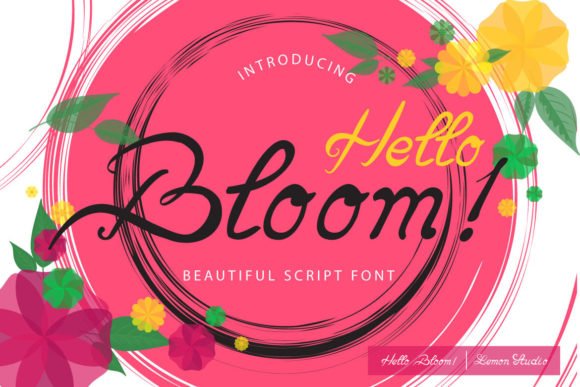
The Perfect Match for Your Creative Projects: Hello Bloom Font
Have you ever been in the midst of brainstorming a new design project, and suddenly, the perfect font pops into your head? For designers, those ‘aha’ moments are the spark that sets creativity ablaze. And for many, Hello Bloom Font has become that elusive match that ignites their imagination.
Hello Bloom Font is a modern handwritten font that brings a touch of elegance and sophistication to any design project. With its unique characters and fresh aesthetic, it’s perfect for creating eye-catching invitations, greeting cards, and branding materials. Whether you’re a seasoned designer or just starting out, Hello Bloom Font is an invaluable addition to your toolkit.
Hello Bloom Font Key Features
- Font Family: Hello Bloom is a unique, hand-drawn font designed for digital use. It comes in 4 different styles: Regular, Bold, Italic, and Bold Italic.
- Language Support: This font supports a wide range of languages, including Latin, Cyrillic, and Greek alphabets, making it a versatile choice for multilingual designs.
- Unique Characteristics: Hello Bloom features delicate, hand-painted brushstrokes and subtle texture, giving it a charming, organic feel that sets it apart from other fonts.
Hello Bloom Font Review
Hello Bloom Font is a beautiful and elegant script font that’s perfect for adding a touch of whimsy to your designs. ✨ The flowing curves and subtle imperfections make it feel truly hand-drawn, which I love. ✨ It’s also incredibly versatile, working well in a variety of contexts from wedding invitations to social media graphics.
One of the things that really stands out about Hello Bloom Font is its legibility. ✨ Even at small sizes, the font remains clear and easy to read, which is essential for any font. The font also includes a range of ligatures and swashes, which add an extra level of personality to your designs.
- ⚠️ Limited character set: While the font includes a range of letters and numbers, it’s not a full Unicode font. This may be a problem if you need to use it for languages other than English.
- ⚠️ Not ideal for body text: While Hello Bloom Font is perfect for headings and titles, it’s not the best choice for body text. The font is quite ornate, which can make it difficult to read in large quantities.
Overall, I’m really impressed with Hello Bloom Font. It’s a beautiful and versatile font that’s perfect for adding a touch of elegance to your designs. While it has some limitations, I think it’s well worth the investment for any designer looking to add a bit of whimsy to their work.
Tips for Getting the Most Out of Hello Bloom Font
Use Hello Bloom Font to add a touch of elegance and sophistication to your designs. Pair it with bold colors and clean lines to create a modern look. Experiment with different font sizes and styles to create visual interest.
Hello Bloom Font is ideal for wedding invitations, branding materials, and marketing materials. Use it to create a consistent visual identity for your business or personal projects. The font’s elegant and sophisticated look makes it perfect for creating a professional and polished image.